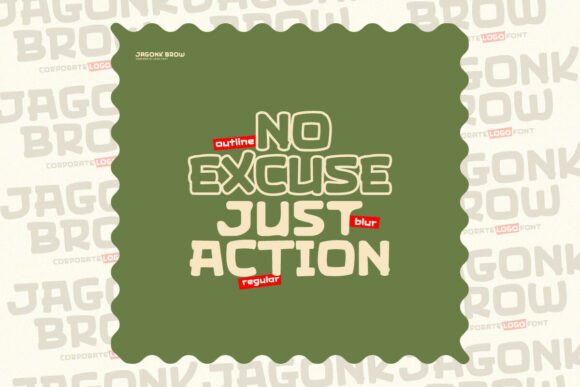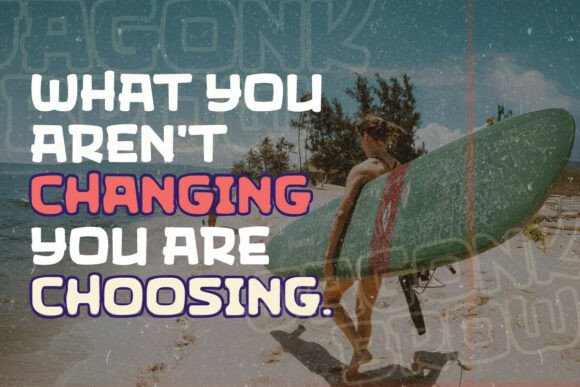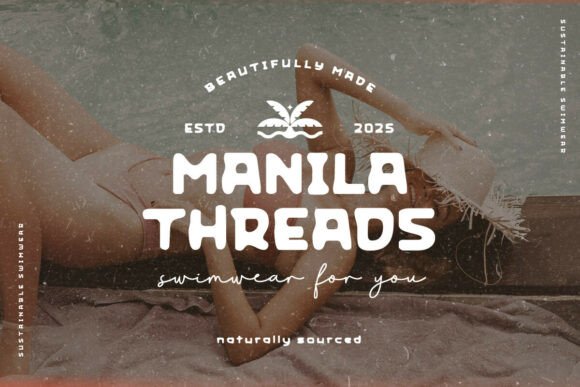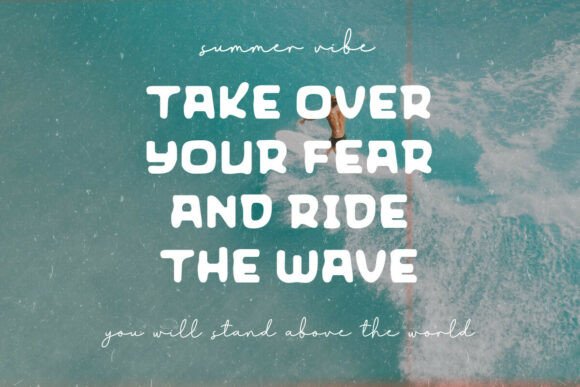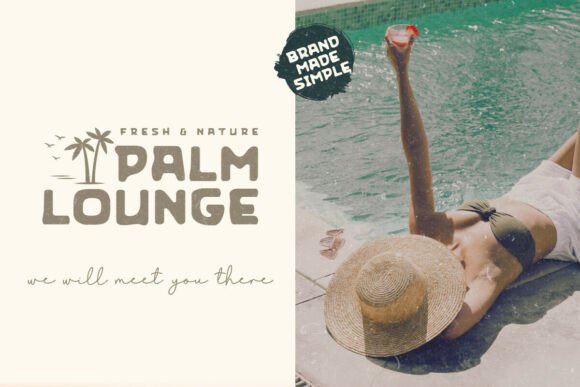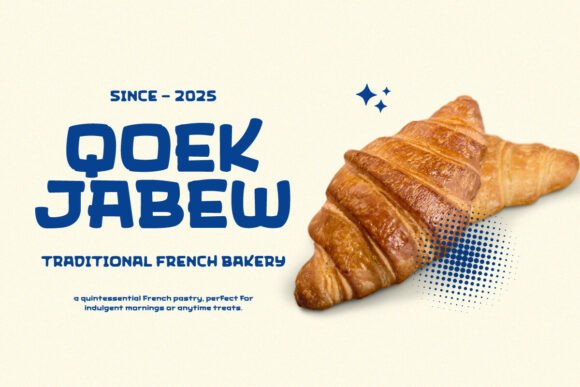
Introduction to Jagonk Brow Font
Remember the rush of excitement when you finally nail that perfect design for your client’s creative project? The sense of satisfaction is unmatched, and the right font can make all the difference. For designers seeking a bold and distinctive visual identity, the Jagonk Brow Font is an absolute game-changer. This versatile font offers three unique styles that cater to diverse branding needs, from modern businesses to creative industries.
As a valuable design resource, Jagonk Brow Font provides the flexibility to adapt to various branding requirements. Its clean, professional Regular style is ideal for modern businesses and tech brands, while the Blur version adds a futuristic touch perfect for standout visuals. Meanwhile, the Outline style gives your design a sleek, stylish twist that works beautifully for minimal yet impactful layouts.
Key Features of Jagonk Brow Font
- Unique and creative design ideal for various projects, including graphic design and digital art.
- Perfect for designers looking for a unique and versatile design element for their creative project.
Honest Review: Jagonk Brow Font
I recently had the opportunity to work with the Jagonk Brow Font, and I’m excited to share my thoughts on this design resource. As a designer, I’m always on the lookout for high-quality fonts that can elevate my creative projects.
- Unique aesthetic: The Jagonk Brow Font has a distinctive, hand-drawn feel that sets it apart from more generic fonts.
- Clear legibility: Despite its creative flair, the font remains easy to read, even at smaller sizes.
- Limited font weights: The Jagonk Brow Font only comes in a few weights, which may limit its versatility in certain design projects.
Overall, I’m impressed with the Jagonk Brow Font’s unique aesthetic and clear legibility. While it may have some limitations, it’s a great addition to any designer’s toolkit. With a little creativity, you can achieve some amazing results with this font. Highly recommended for designers working on creative projects that require a touch of personality.
For the best results, use Jagonk Brow Font on a high-contrast background to make it stand out. You can also combine it with other design elements to create a unique and creative look.
The Jagonk Brow Font is ideal for use in logos, social media graphics, and other creative projects where a unique and eye-catching font is needed.